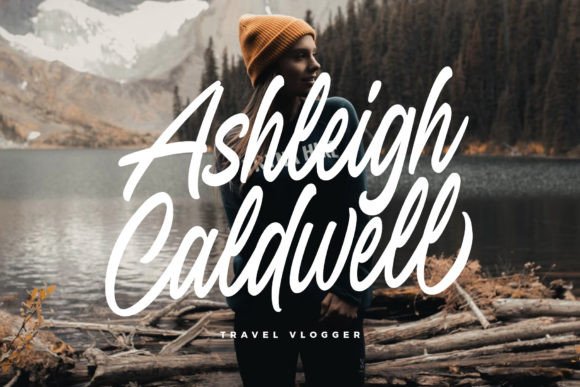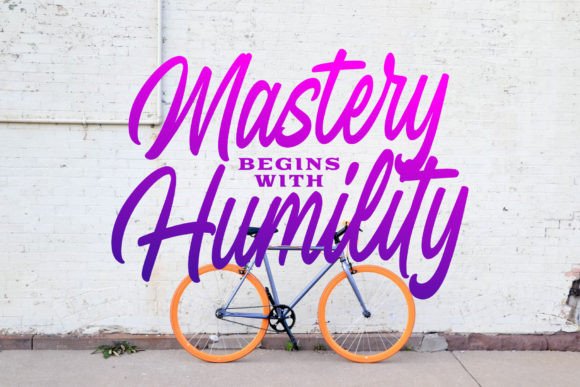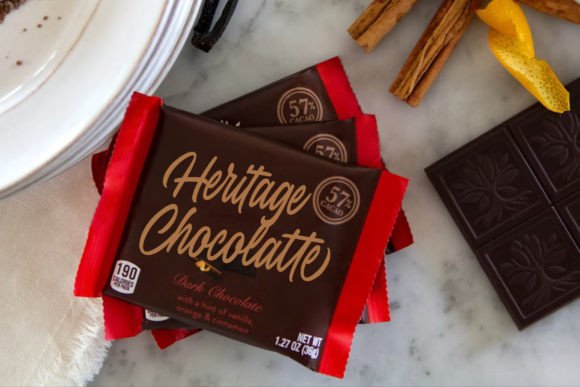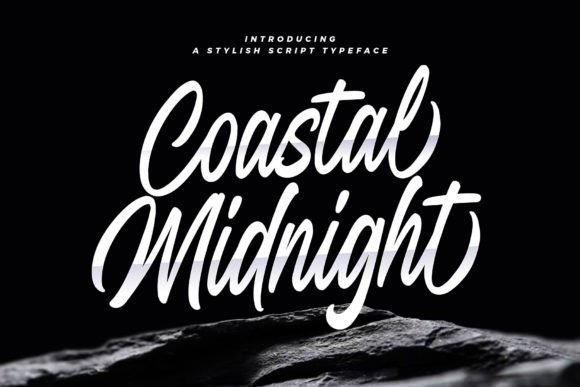
Introduction to Coastal Midnight Font
Coastal Midnight is a captivating brush script font that exudes a blend of relaxed elegance and coastal charm.
👤 Author Damarletter
With its flowing, hand-painted strokes and organic letterforms, this font brings a sense of breezy sophistication to your designs Inspired by serene beachside nights and the beauty of nature, Coastal Midnight is perfect for projects that aim to evoke a tranquil and inviting atmosphere.
Why Choose Coastal Midnight Font?